The MTV Emography Mobile Project created by FCB Zurich is a Facebook app and microsite that allow you to express yourself with emotion lacking in ordinary text, by using one of their eight designed image based fonts.
MTV emography project
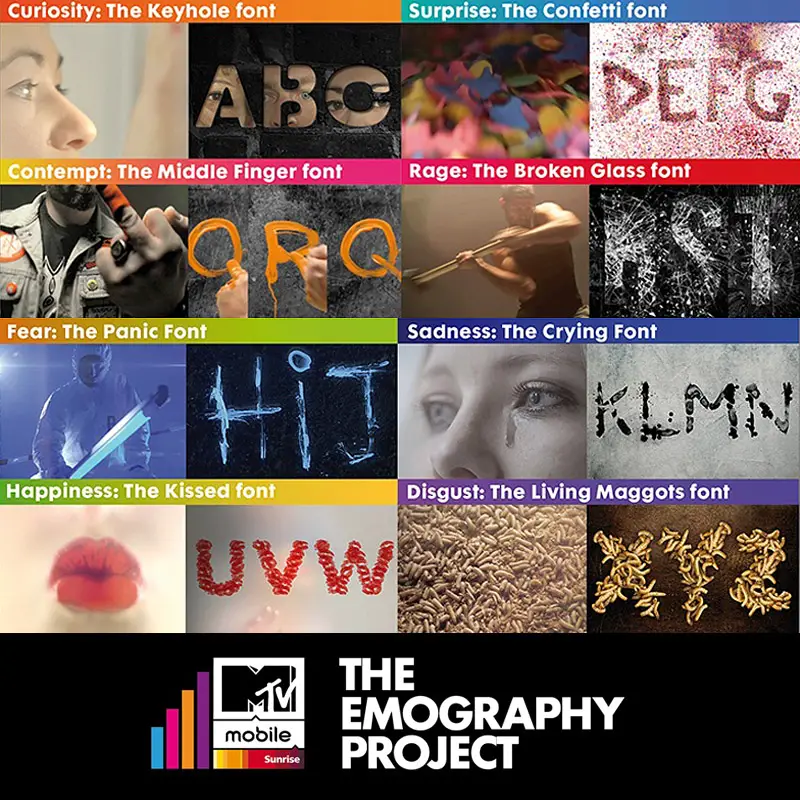
Simply type in your message via the facebook app or the microsite, choose the desired font and the text message service from MTV Mobile will send the desired message to the recipient in the form of a video message.
The Facebook App:
The Microsite:(no longer active)
The Fonts:
The Maggot Font to express disgust:
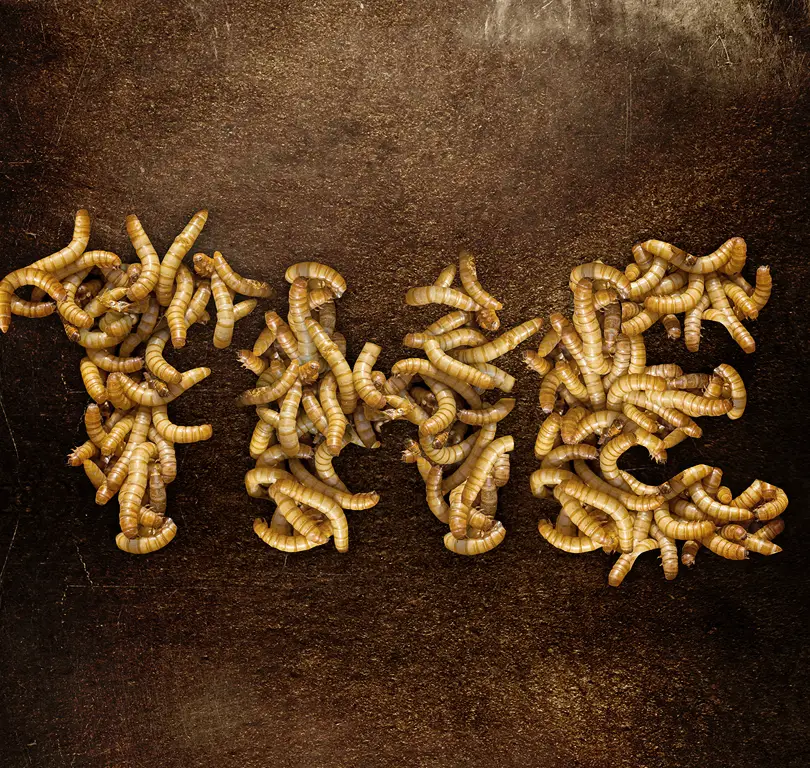
The Kissed font to express happiness:
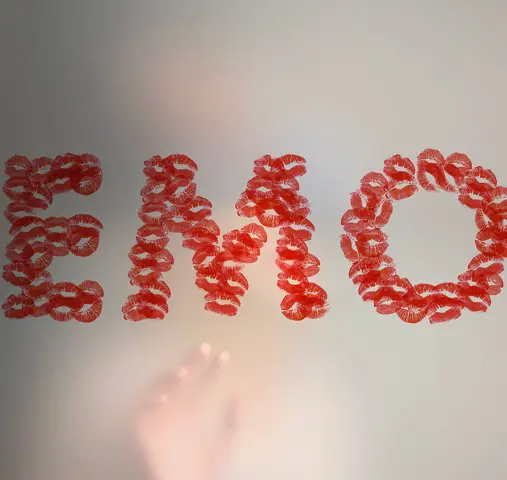
The Confetti font to express surprise:
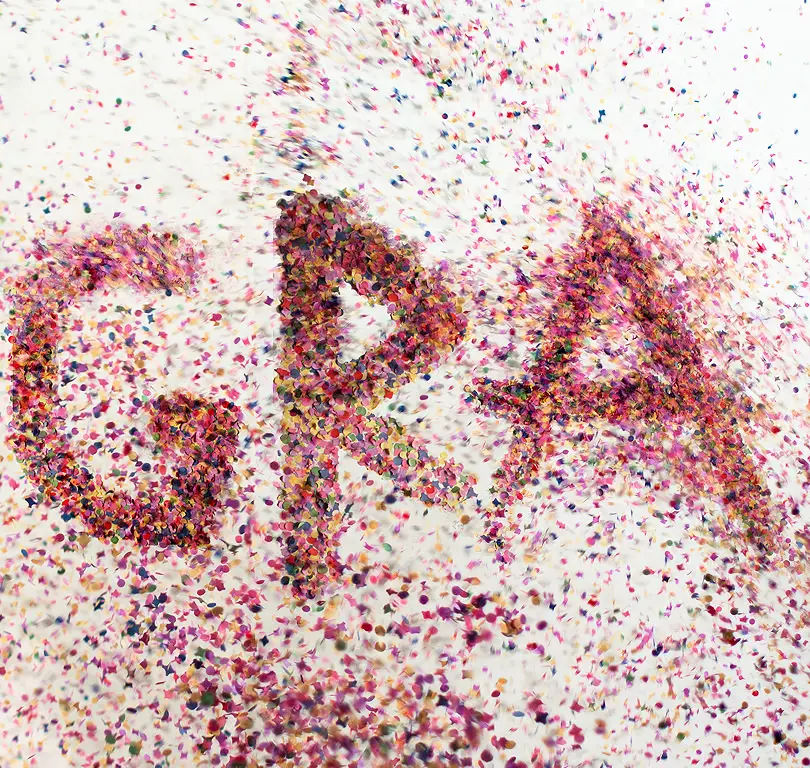
The Crying font to express sadness:
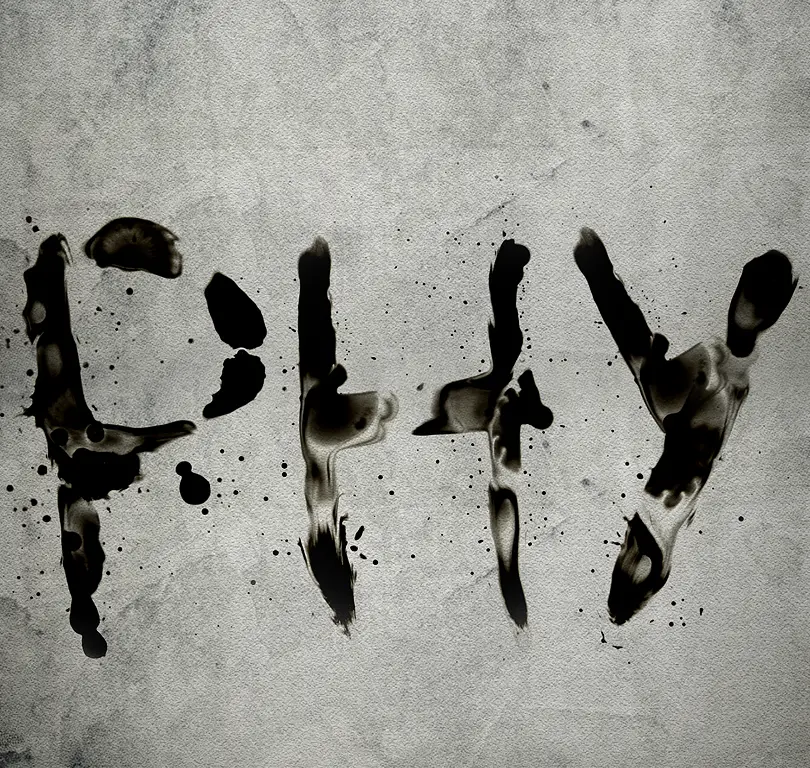
The Broken Glass font to express rage:
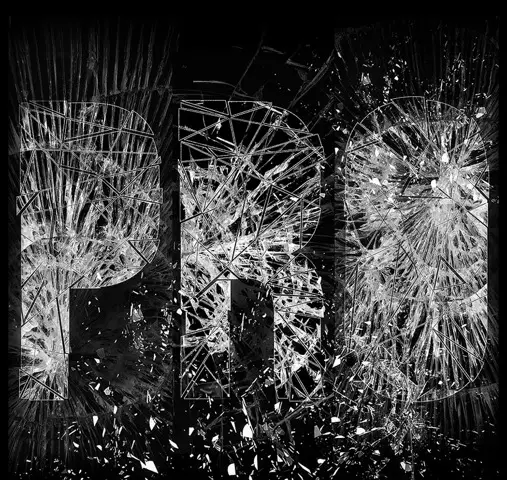
The Fear font to express panic:
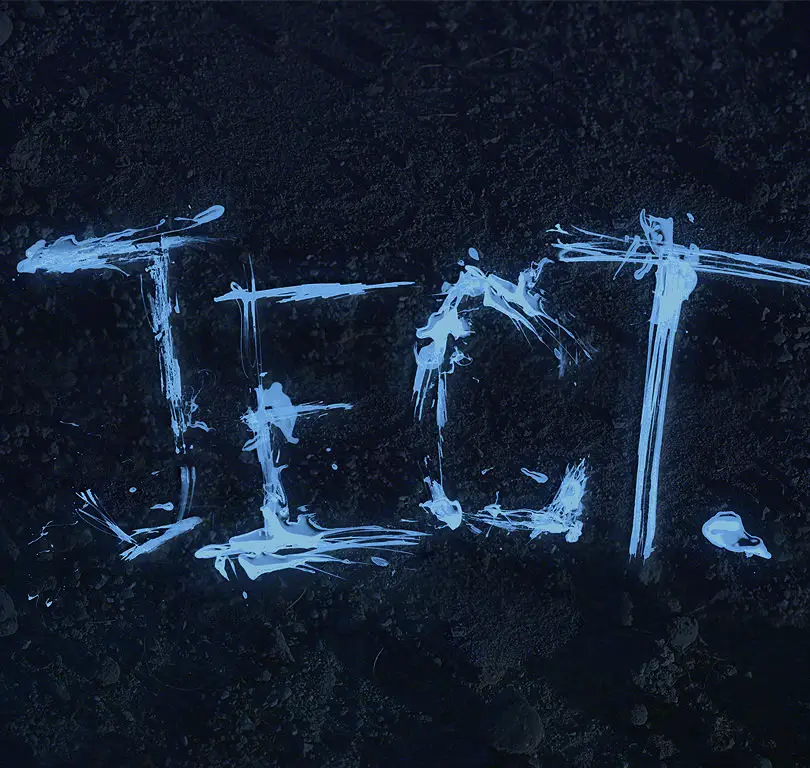
The Middle Finger font to express contempt and the Keyhole font to express curiosity